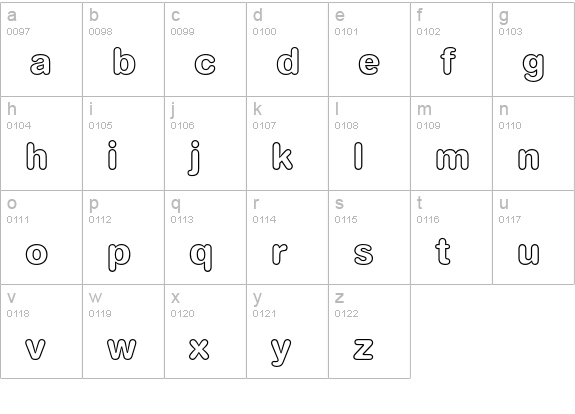
AG Book Rounded Bold Outline Font Details
AG Book Rounded Bold Outline is a comfortable, highly readable variant in the AG typeface family \xE2\x80\x94 well suited to long-form body text, articles, and editorial content.
AG Book Rounded Bold Outline font is a modern and stylish typeface that is perfect for eye-catching headlines, titles, and creative design projects. With its bold and rounded outline style, this font exudes a sense of playfulness and sophistication. It is versatile and can be used in various design applications to grab the viewer's attention. The best part is that AG Book Rounded Bold Outline font is available for free download at FontsMarket.com. This means that you can easily access this unique and striking font to enhance your designs without any cost. Whether you are a graphic designer, blogger, or student looking to add a touch of flair to your projects, AG Book Rounded Bold Outline font is the perfect choice. Download it today and elevate your design game with this stunning typeface.